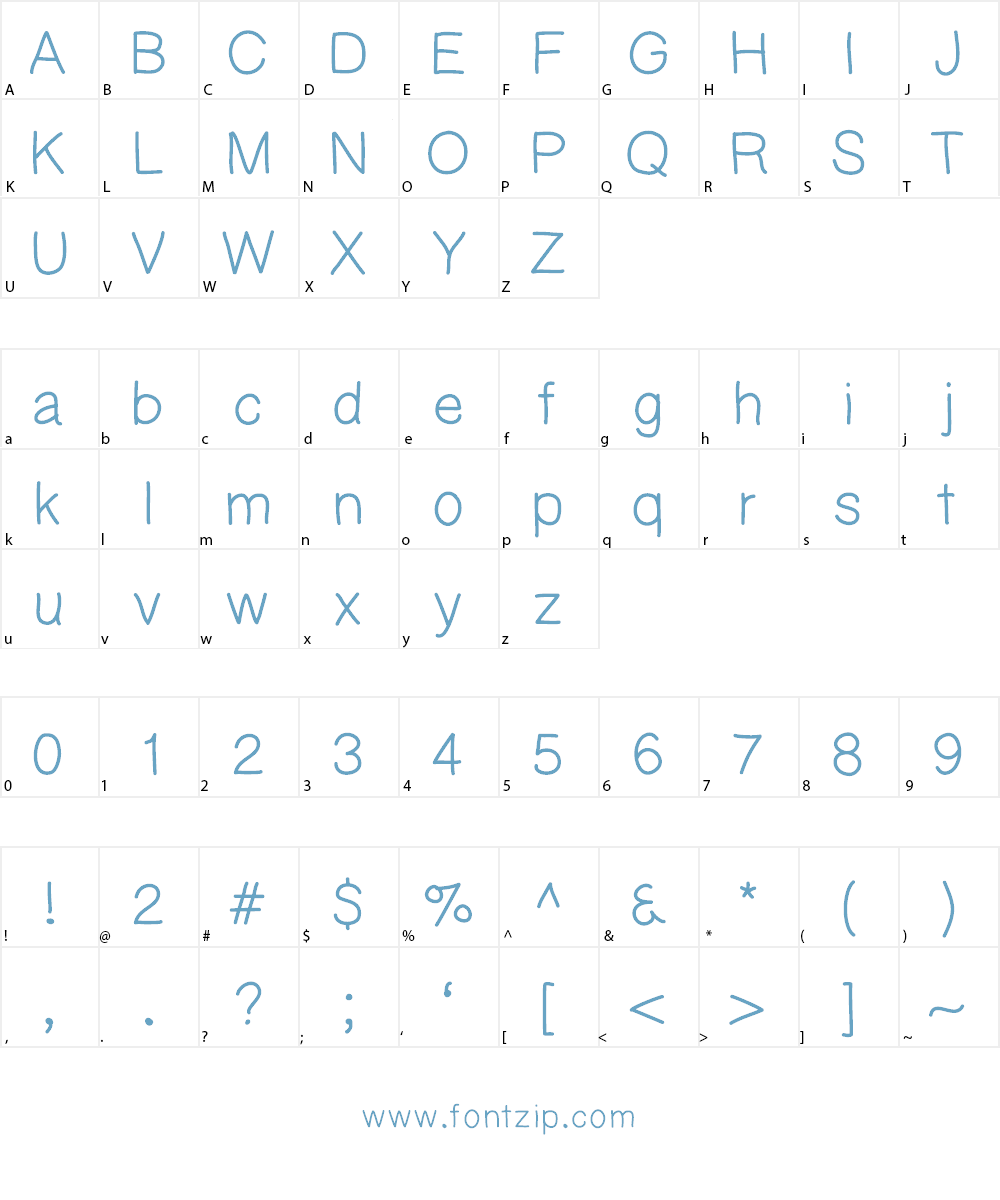
Japanese hiragana and katakana font. Characters may not work or even be viewable on all PCs, depending on the system setup. Latin glyphs added 7/16. Thanks and アリガトウ!